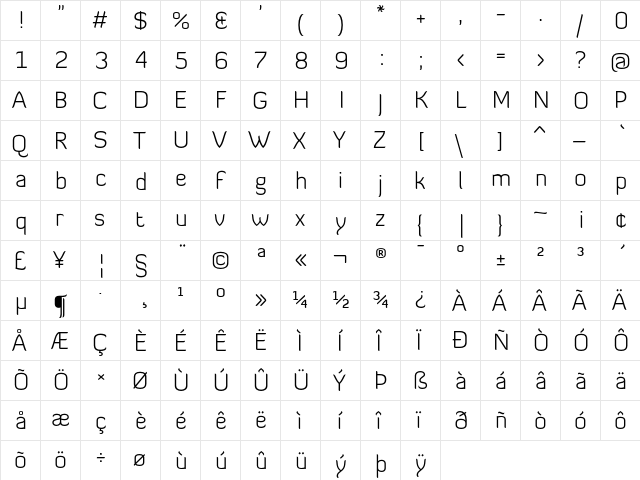
Diavlo Light
| Foundry | Jos Buivenga |
| Designer | Jos Buivenga |
Design Context for Diavlo Typeface
Diavlo is a composed and adaptable typeface that performs quietly and consistently across a wide range of design contexts. Its slender proportions lend an understated elegance to any composition.
Pro Tip: Use Diavlo in both headline and body roles to test its range before committing to a single application.